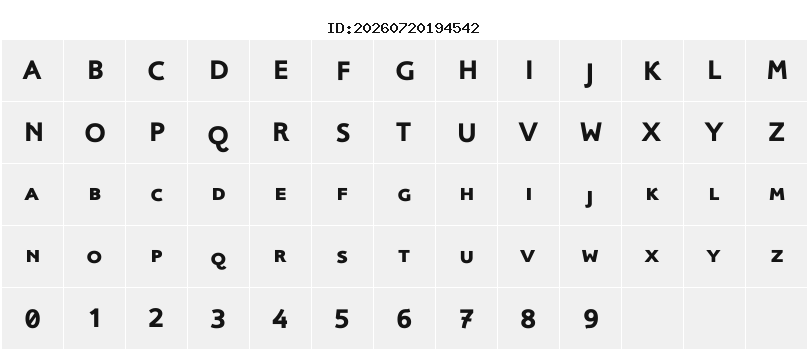
• Font Name: FoxSmallCapsBold
• Full Font Name: FoxSmallCapsBold
• PostScript Name: FoxSmallCapsBold
About FoxSmallCapsBold.ttf
FoxSmallCapsBold.ttf is a modern, elegant sans-serif font designed for ultimate readability and visual harmony. Perfect for branding, headlines, web design, and print materials.